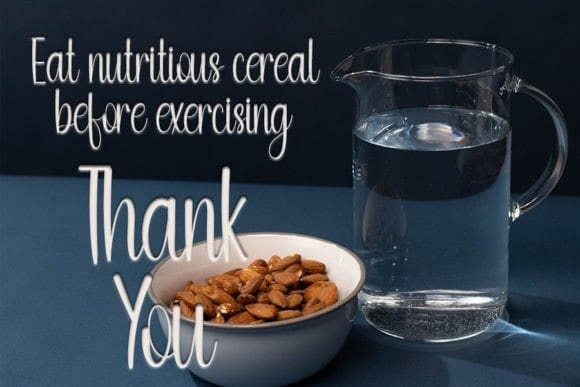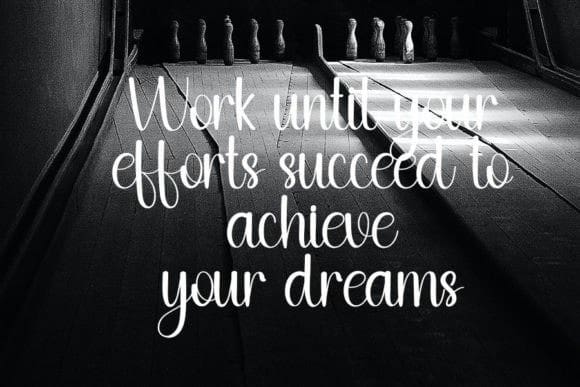
Bowling Script Font
Bowling Script Font, is a trendy handwritten font with a contemporary atmosphere and impeccable form, inspired by a timeless classic calligraphy. It will add elegance and class to any of your design projects.